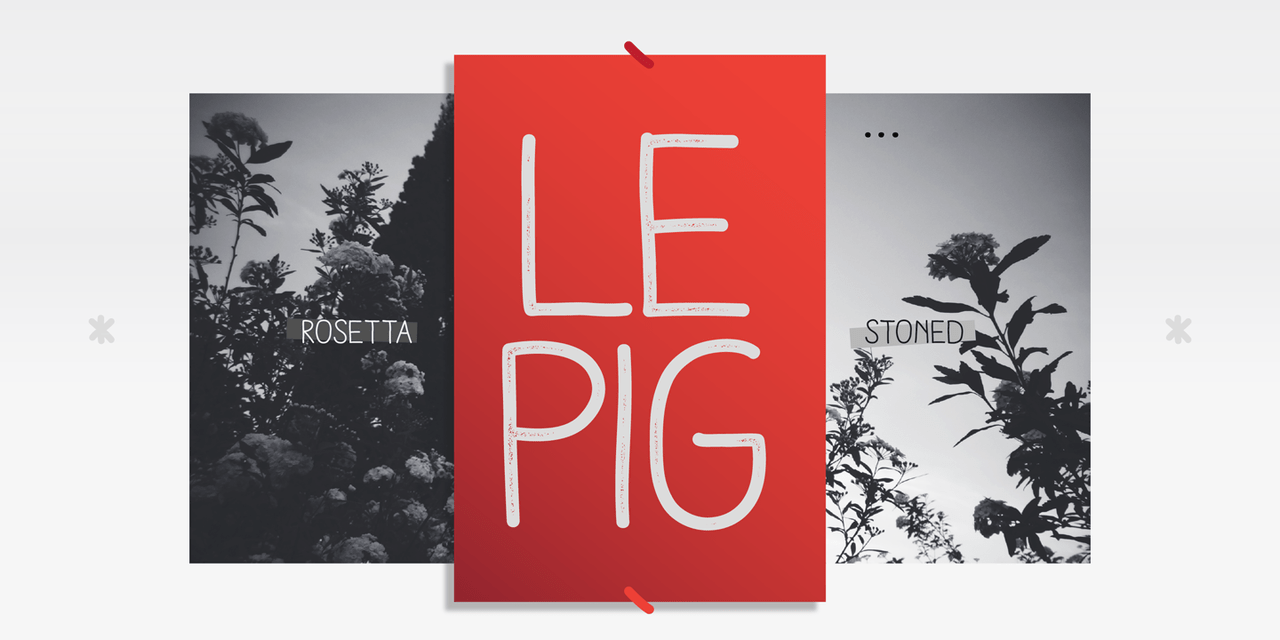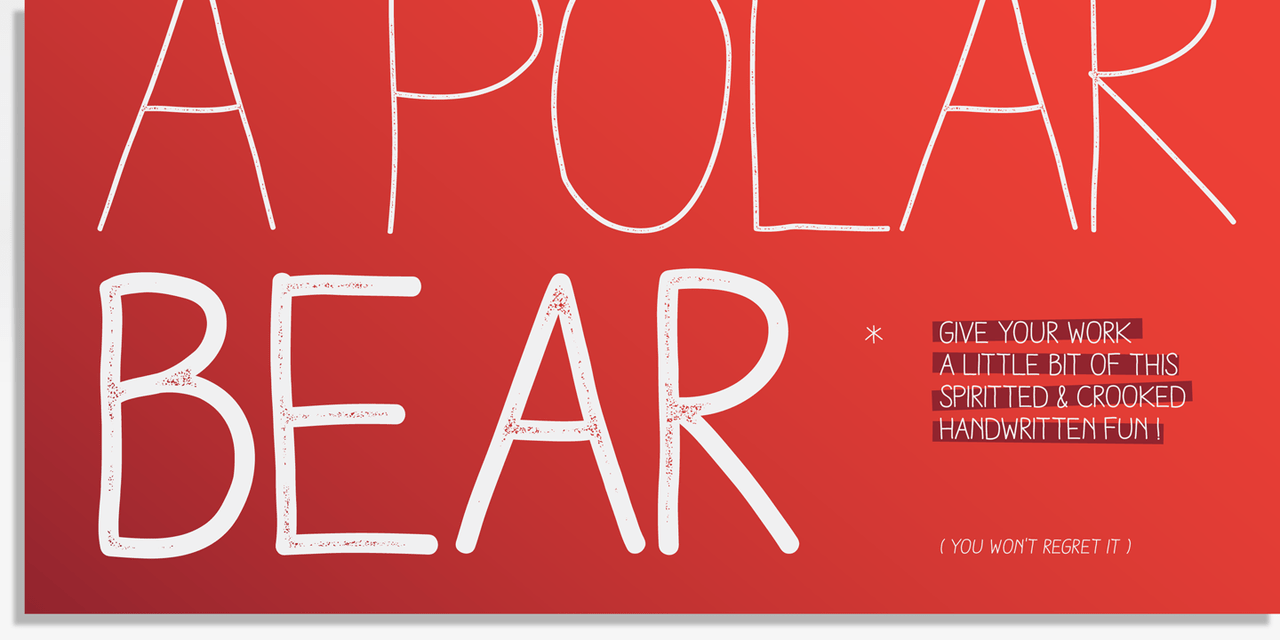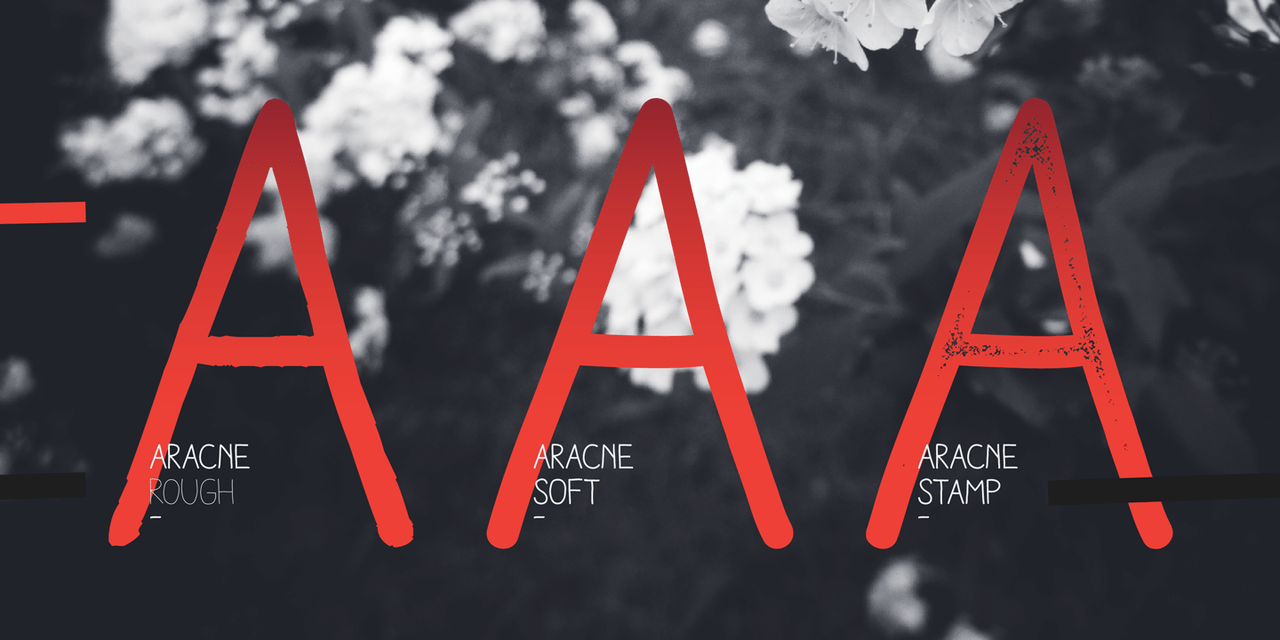
Aracne was created as a regular handwritten font, with light and regular styles, it provides a wide range of possibilities. It\’s recommended usage is for display titles, because of it\’s good legibility and quality of characters.